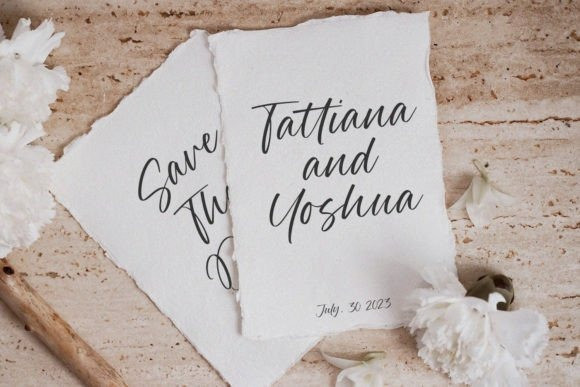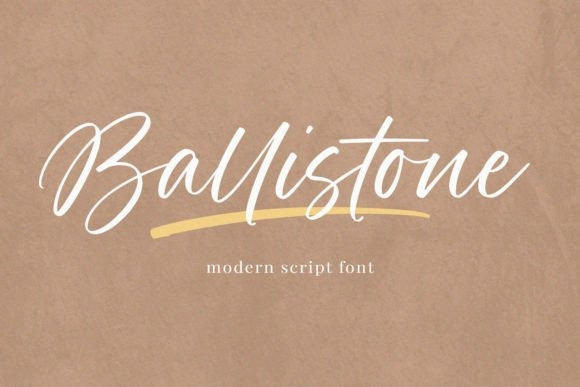
Ballistone Font
Ballistone Script Font is a splendid handwritten font created with great care, especially for you!
Ballistone is perfect for product packaging, branding project, magazines, social media, weddings, or just used to express words above the background.